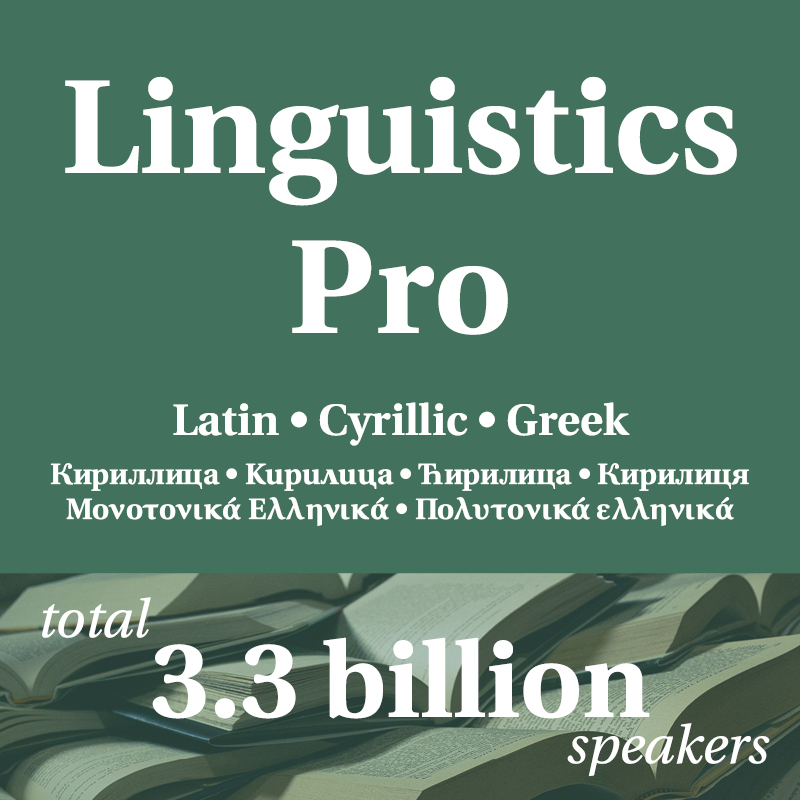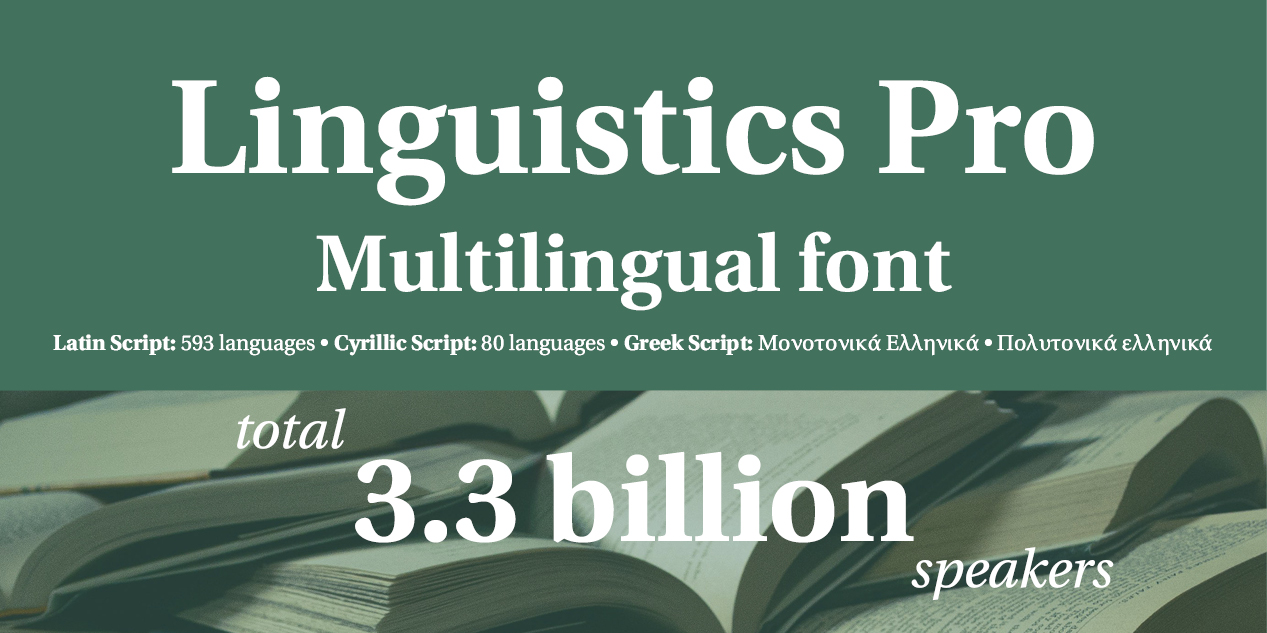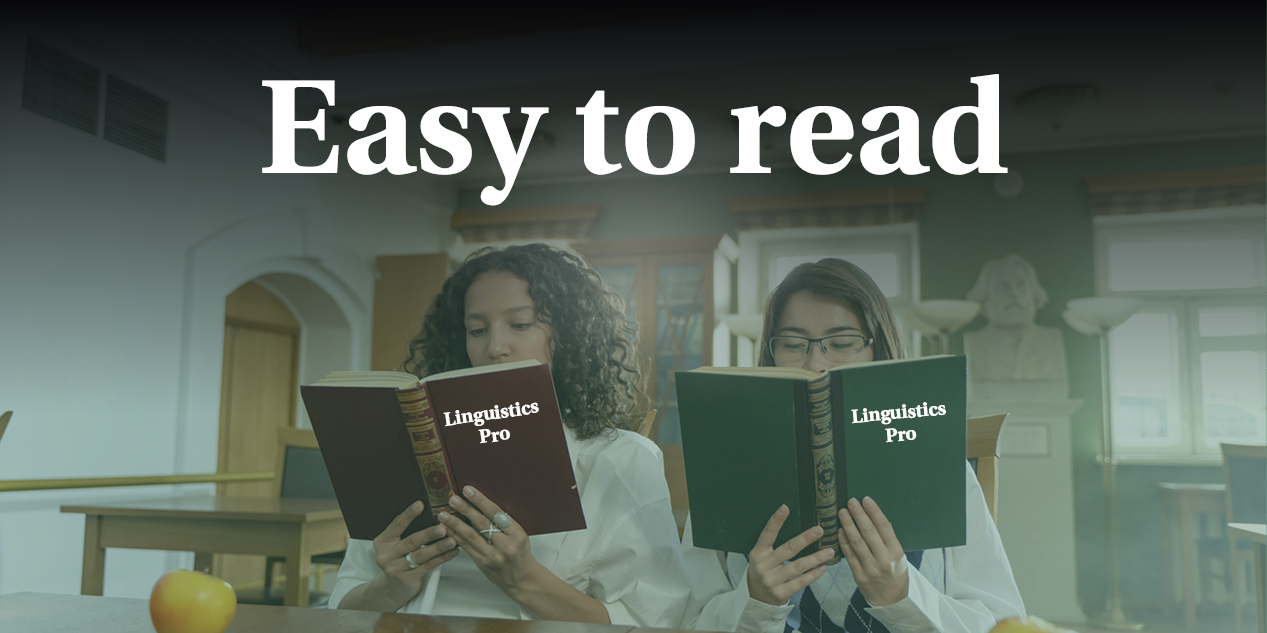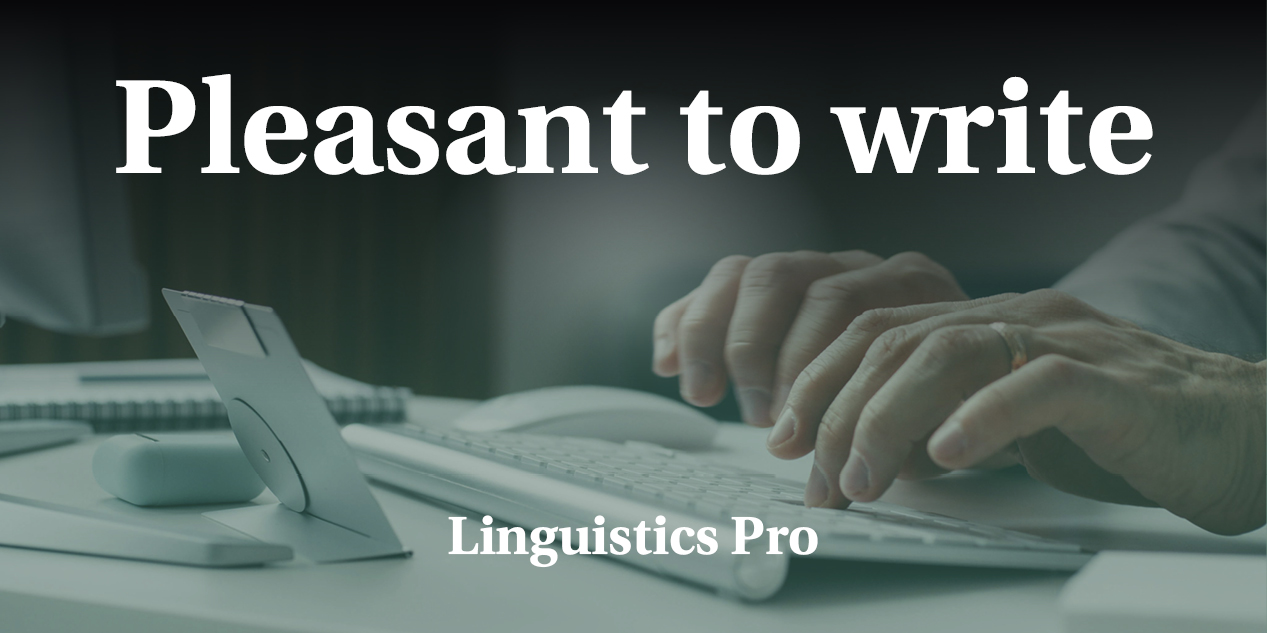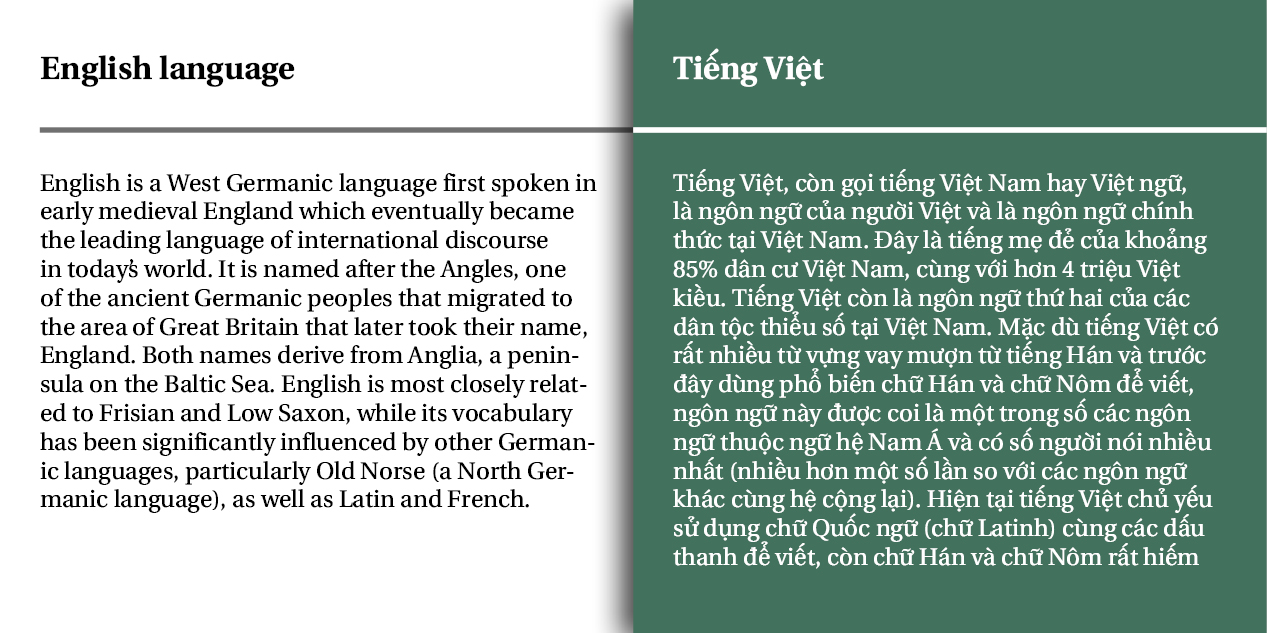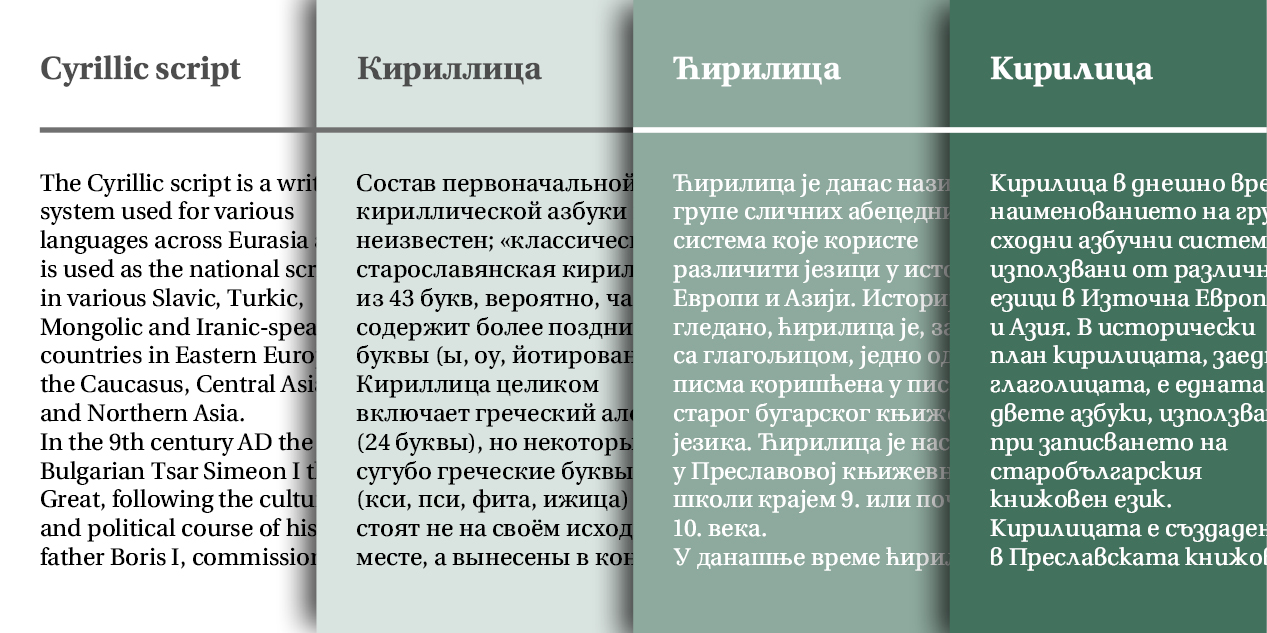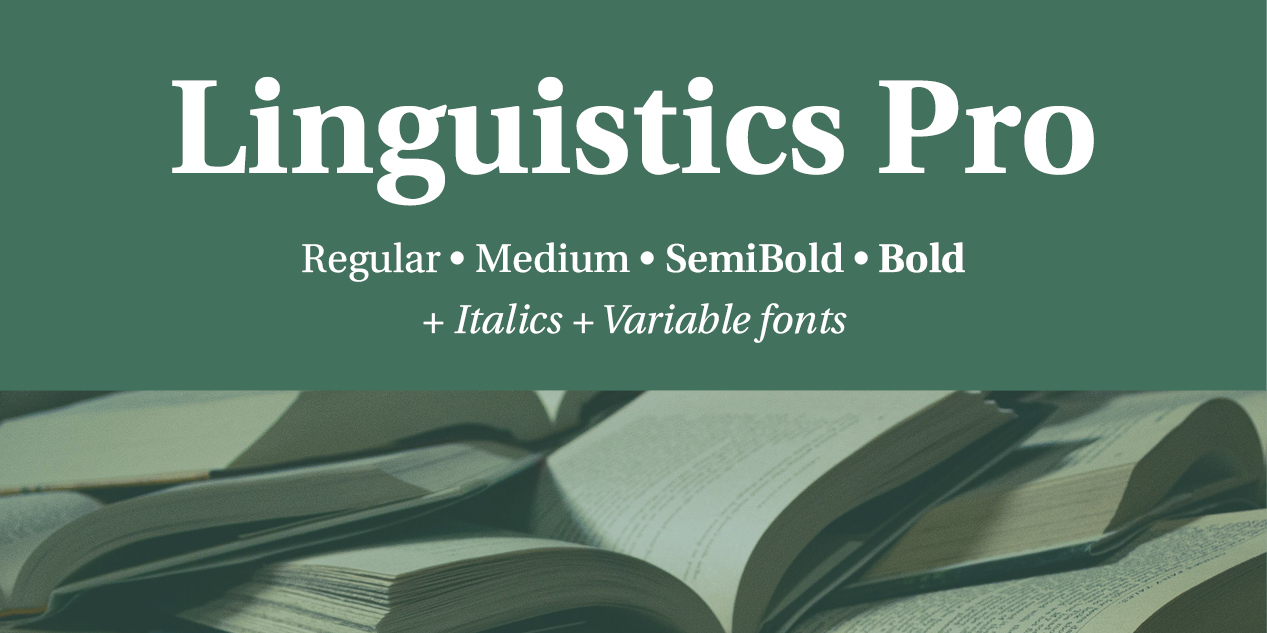
Linguistics Pro
Linguistics Pro is a part of the project LOCAL FONTS for development of free-to-use fonts with the modern Bulgarian letterform model in the Cyrillic Unicode range. The project as a whole is based on well known fonts published under licenses which permit modifications and derivative works. The Linguistics Pro font family is based on the Utopia Nova font family, issued by Andreas Nolda, copyright(c) 2015, under the SIL Open Font License (OFL), version 1.1. On 2016-10-08 Andreas Nolda renamed his font “Utopia Nova” to “Lingua Franca”. “Utopia Nova” no longer exists.
Linguistics Pro in Use